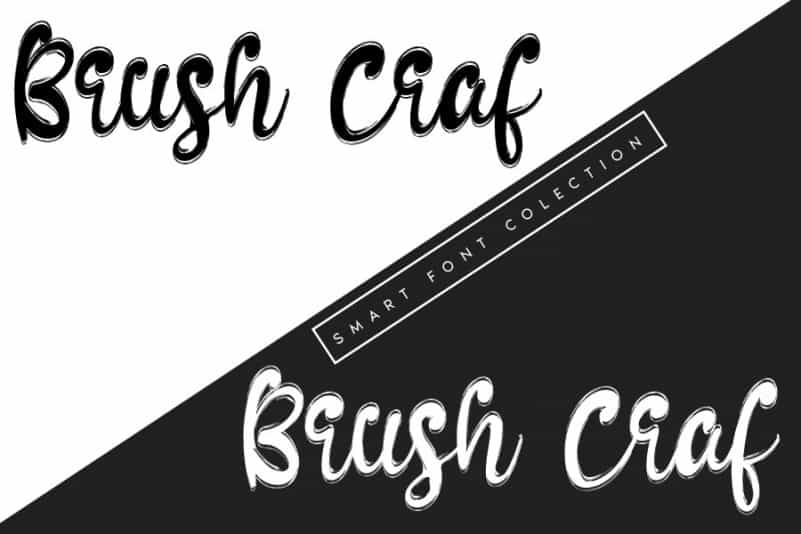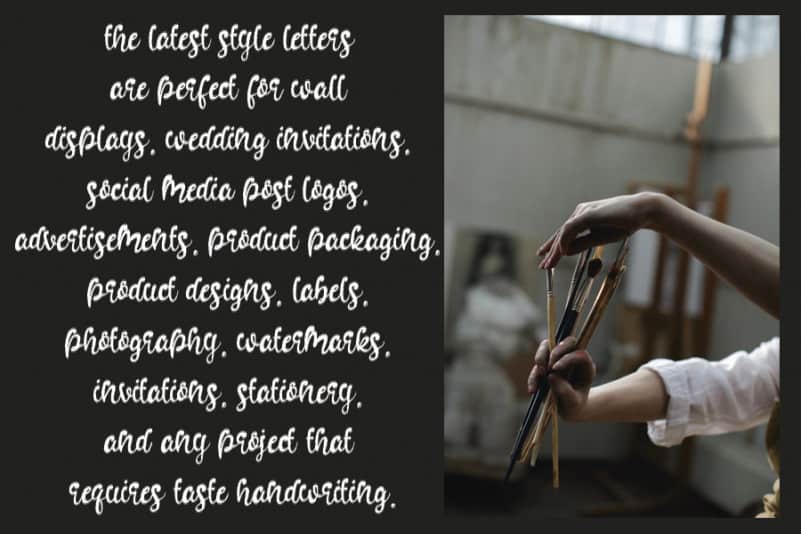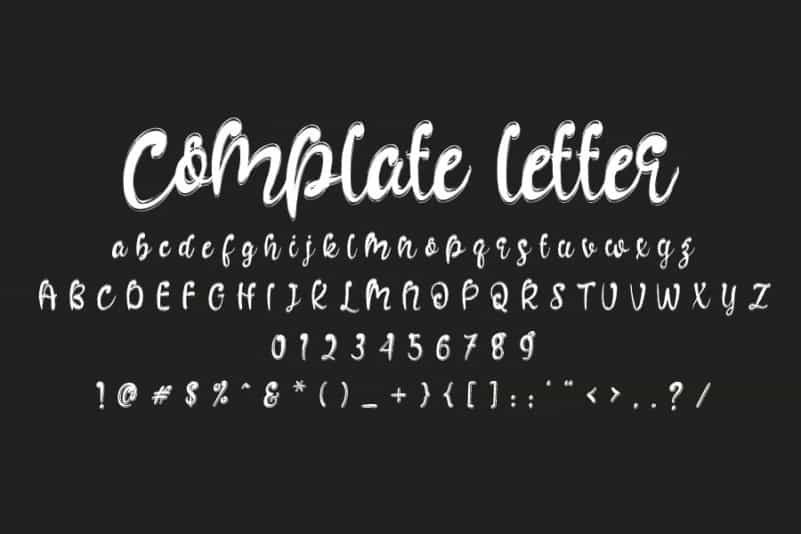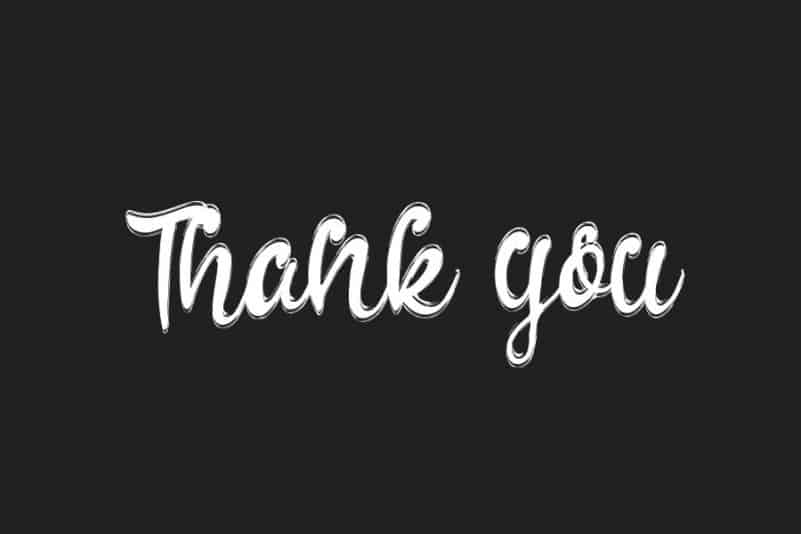
Brush Craf Script Font
Brush Craf Script Font is a unique handwritten font created with a brush pen. It will elevate a wide range of design projects to the highest level, be it branding, headings, wedding designs, invitations, signatures, logos, labels, and much more!